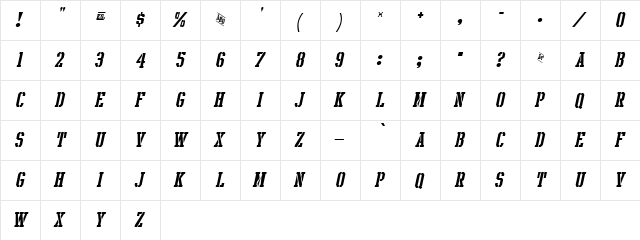
Intramural Stencil Italic JL Regular
| Foundry | Jeff's Fonts & Dingbats |
| Designer | Jeffrey N. Levine |
Design Context for Intramural Stencil Italic JL Typeface
Intramural Stencil Italic JL borrows the utilitarian aesthetic of stencil lettering, with its characteristic cutaways and no-frills construction lending an industrial edge. The dynamic lean of this cut emphasises speed and emphasis in any layout.
A strong choice for packaging that needs edge, warehouse aesthetics, and rough-and-ready visual identities.
Pro Tip: Use Intramural Stencil Italic JL at large sizes on packaging, posters, or apparel where the stencil cutaways read clearly. Avoid small sizes where those gaps become visual noise.